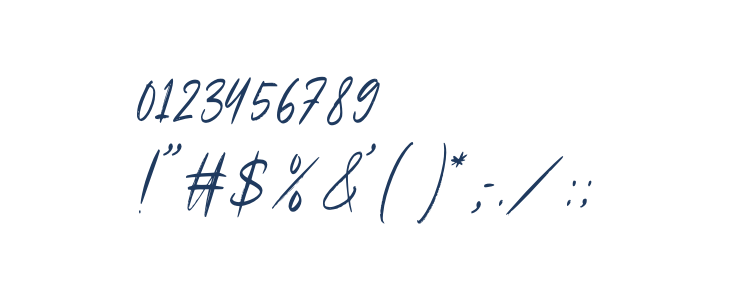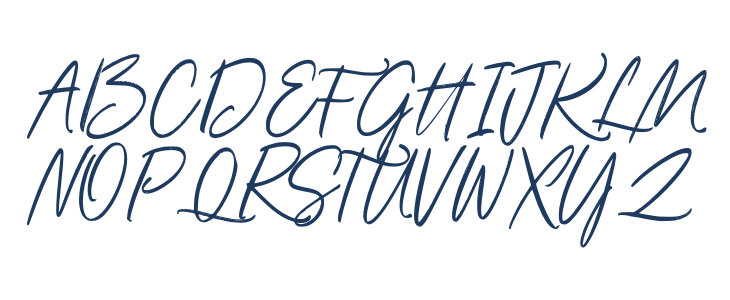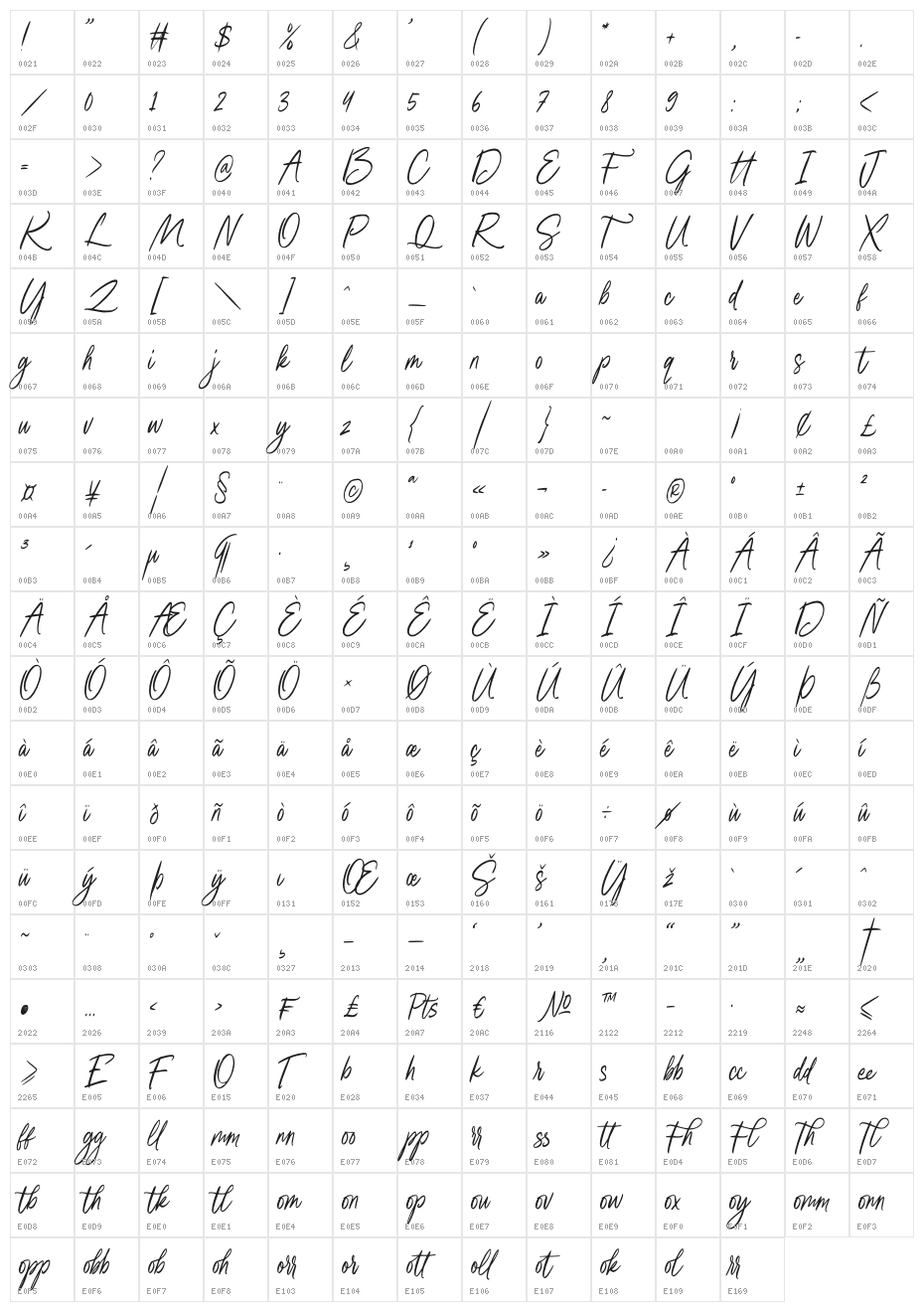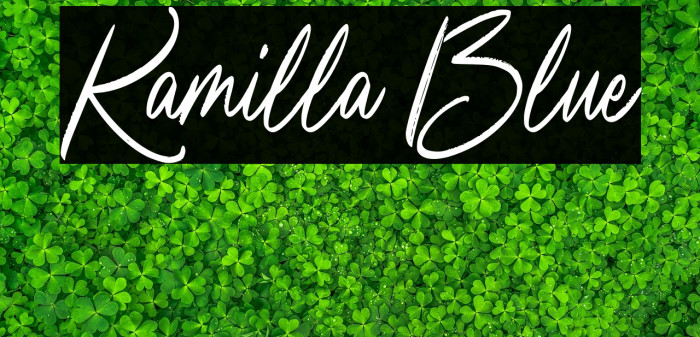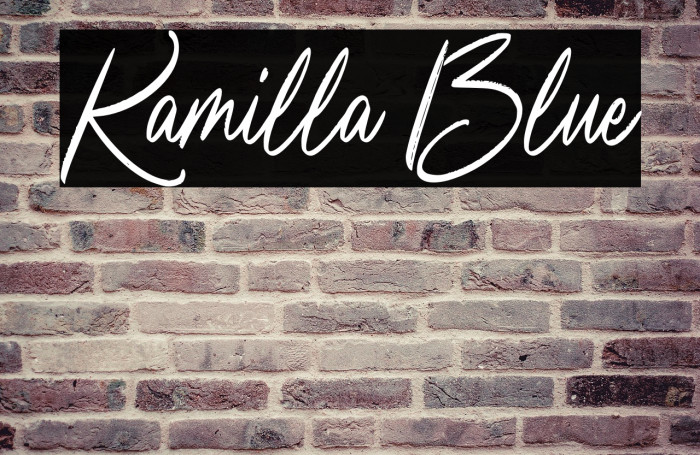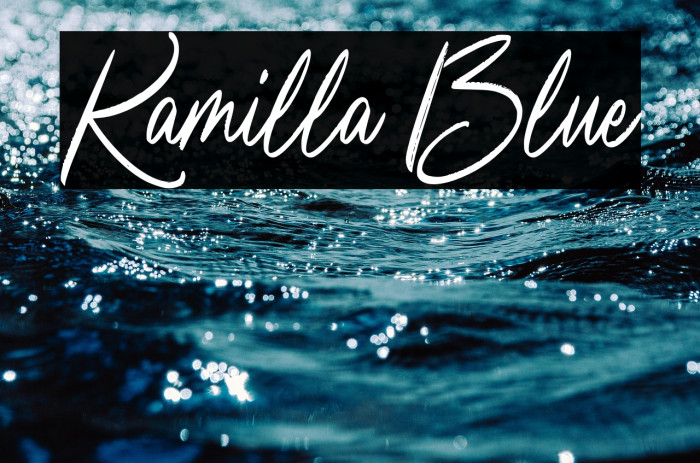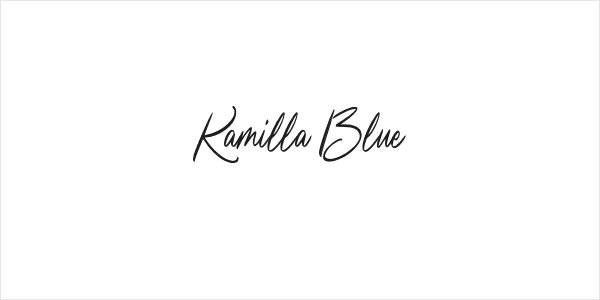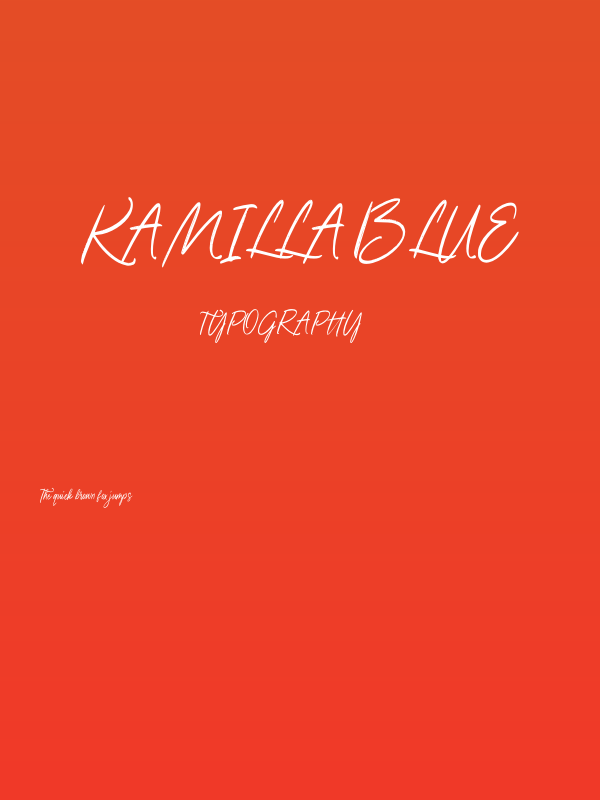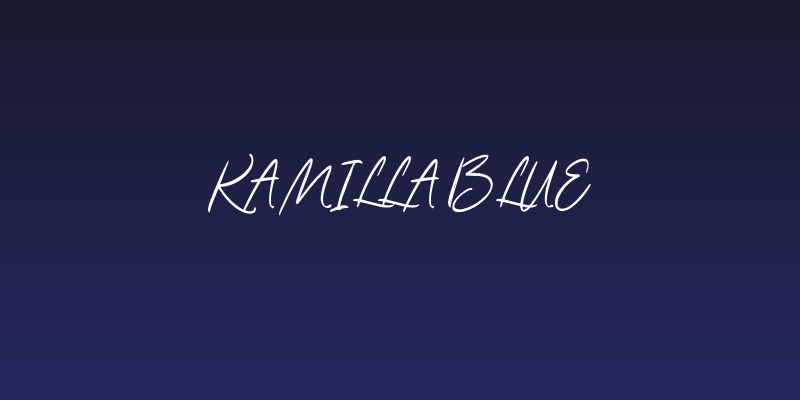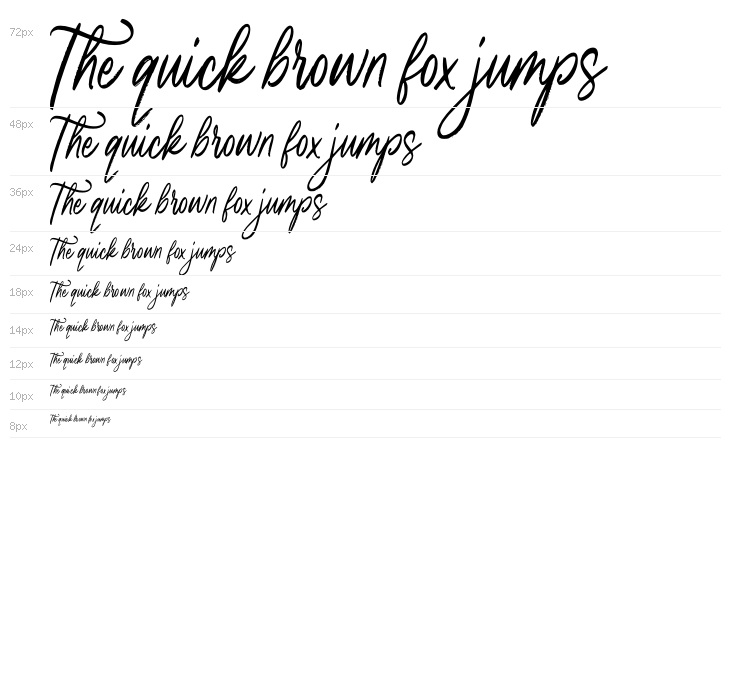
Kamilla Blue Font
Kamilla Blue Description
A flowing, cursive script font with a handwritten appearance, featuring tall ascenders, dynamic strokes, and a casual yet elegant style. The characters are slightly slanted and connected, with moderate contrast in stroke thickness.
| Overall Style | Decorative, Handwritten, Elegant |
| Use Case | Logos, Headlines, Invitations, Decorative text |
| Proposed Projects | Invitations, greeting cards, branding, quotes, social media graphics, personal notes. |